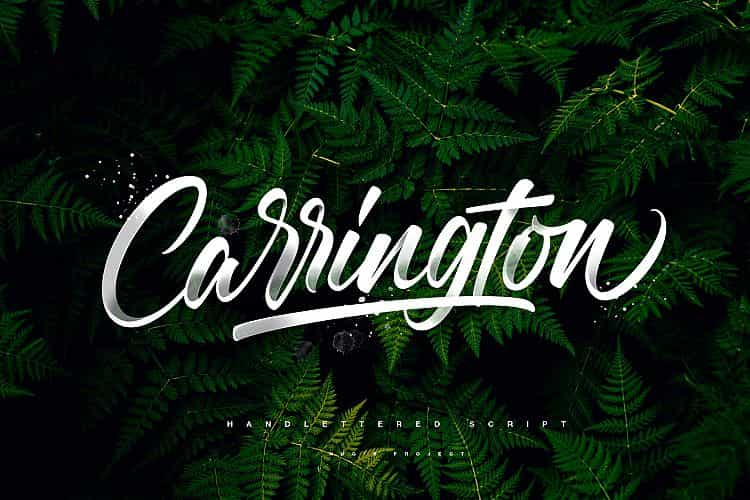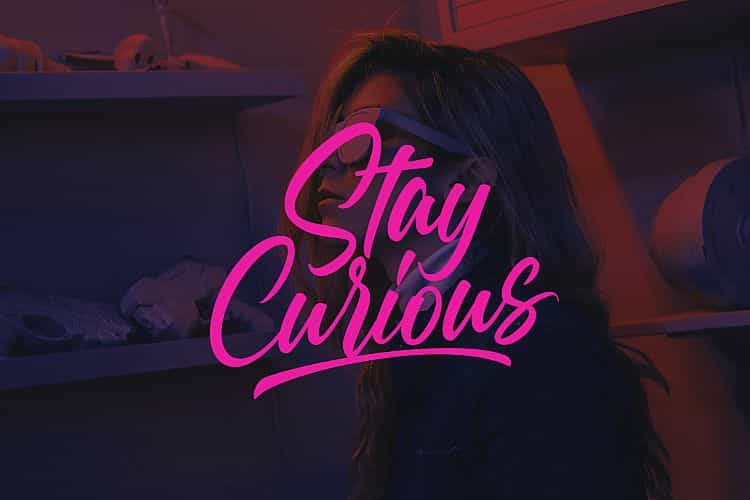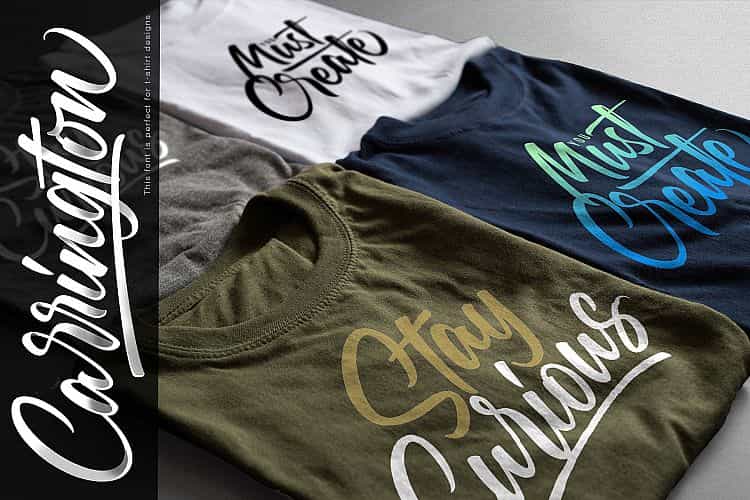
Introducing Carrington Font. Carrington Script Font is a brush script font and it has an active style. It can be employed in different ways such as titles, signatures, logotypes, t-shirt designs, letterheads, signage’s labels newsletters posters badges and every other design that requires a unique striking font.